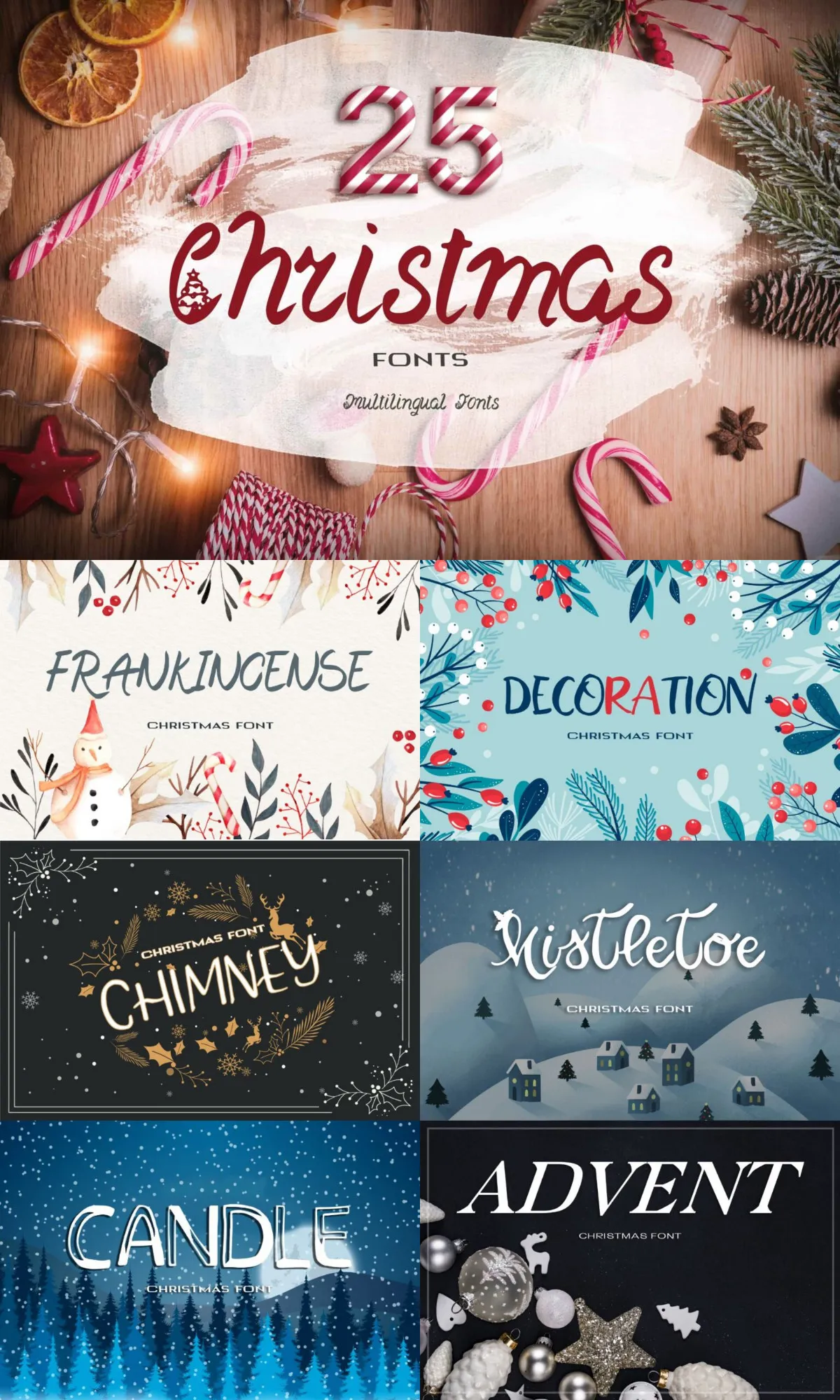
Eldamar Studio - 25 Christmas Fonts
These fonts are suitable for Christmas cards, wedding invitations, branding, stationery, blog design, custom art, custom stamps, custom embossers, or any design purpose. You can use it for your personal use or for a commercial project. These fonts are ideal for branding and decorate your any project. Also, with their help, you can create a logo or a beautiful frame for your home. Or just use it for your small business, book covers, stationery, marketing, blog, magazines, and more.